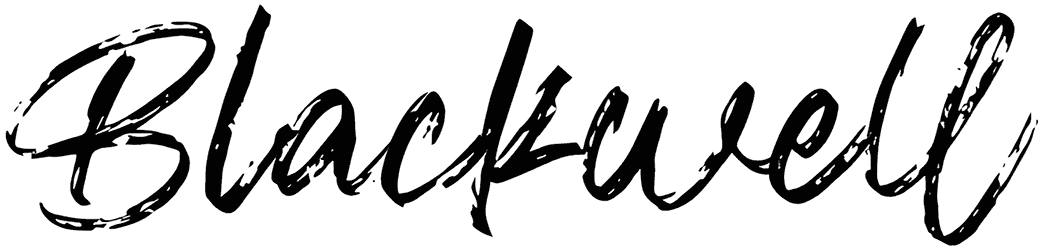
Blackwell Font
Exactly like a friendly brush font with cursive lettering, look at its natural spirit that creates a great impact. It doesn’t matter whether your purpose is a logotype for business cards or the title of greeting cards; in both cases, you can’t catch anything more appealing than Blackwell.